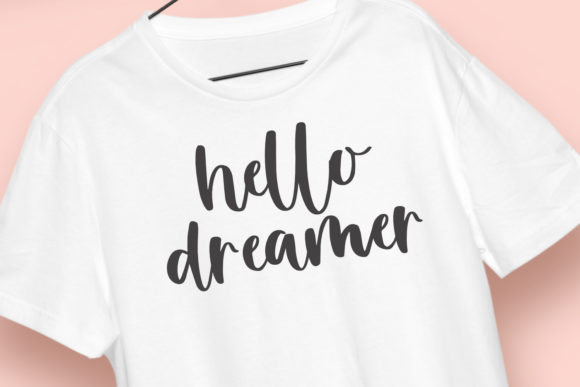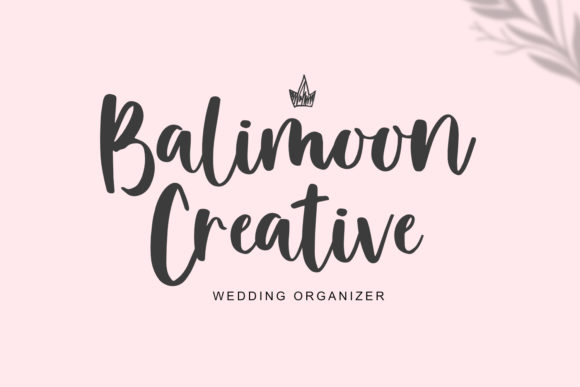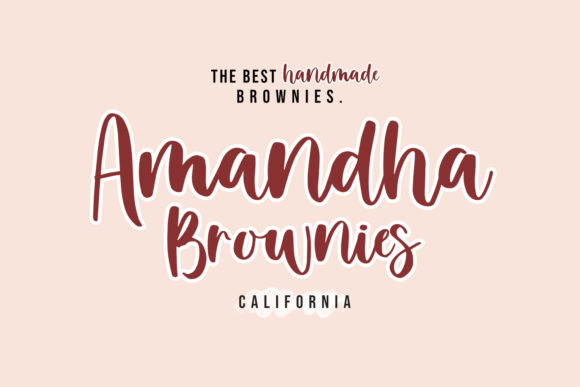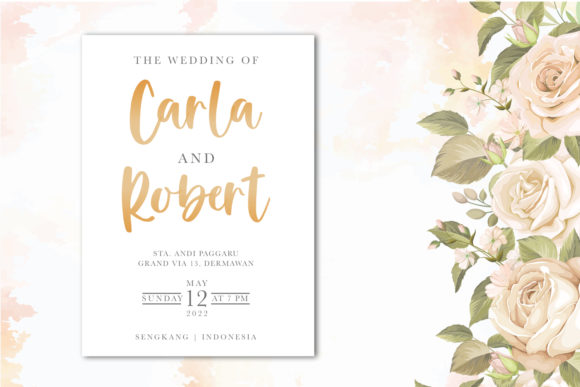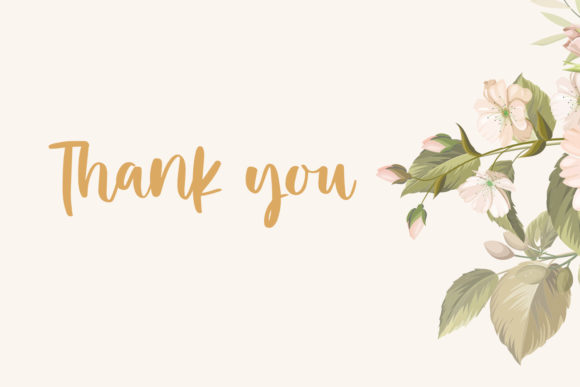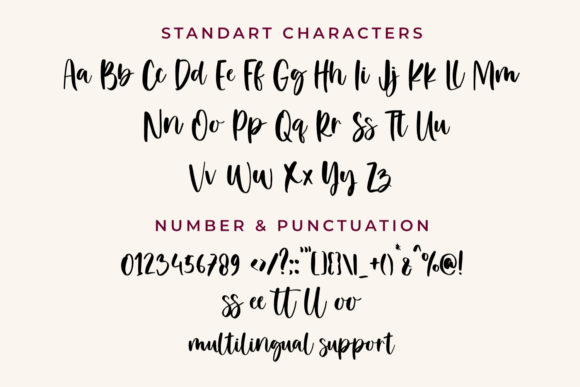
Introducing Balimoon Font: The Perfect Cursive Script for Fashion Branding and Editorial Designs
In the world of typography, fonts play a crucial role in conveying the tone and personality of a brand or design. For designers and crafters looking for a unique and stylish cursive script font, Balimoon is an excellent choice. This beautiful font is defined by smooth curves and is perfect for fashion branding or editorial designs. In this article, we’ll explore the features and benefits of Balimoon Font and why it’s a great addition to your design projects.
What is Balimoon Font?
Balimoon Font is a cursive paint brushed script font that exudes elegance and sophistication. Its smooth curves and fluid strokes give it a natural, hand-painted look that’s perfect for designs that require a touch of personality. The font is designed to be versatile and can be used for a wide range of projects, from fashion branding and editorial designs to packaging and advertising.
Key Features of Balimoon Font
• Smooth Curves: Balimoon Font features smooth, flowing curves that give it a natural and elegant look.
• Cursive Script: The font is a cursive script font, perfect for designs that require a touch of sophistication and personality.
• Paint Brushed Effect: The font has a paint brushed effect, giving it a unique and hand-painted look.
• Fashion Branding: Balimoon Font is perfect for fashion branding, including logos, labels, and packaging.
• Editorial Designs: The font is also great for editorial designs, including magazines, newspapers, and books.
Benefits of Using Balimoon Font
So, why should you use Balimoon Font in your design projects? Here are just a few benefits:
• Unique and Stylish: Balimoon Font is a unique and stylish cursive script font that will add a touch of personality to your designs.
• Versatile: The font is versatile and can be used for a wide range of projects, from fashion branding to editorial designs.
• Elegant and Sophisticated: Balimoon Font exudes elegance and sophistication, making it perfect for high-end designs.
• Easy to Read: The font is easy to read, even in small sizes, making it perfect for body text and headlines.
How to Use Balimoon Font in Your Design Projects
Using Balimoon Font in your design projects is easy. Here are a few tips:
• Pair it with Other Fonts: Pair Balimoon Font with other fonts to create a unique and stylish typography combination.
• Use it for Headlines and Titles: Use Balimoon Font for headlines and titles to add a touch of elegance and sophistication.
• Experiment with Colors: Experiment with different colors to find the perfect combination that matches your brand or design.
Font Name Balimoon Font
In conclusion, Balimoon Font is a beautiful cursive paint brushed script font that’s perfect for fashion branding and editorial designs. Its smooth curves and fluid strokes give it a natural, hand-painted look that’s unique and stylish. With its versatility, elegance, and sophistication, Balimoon Font is a great addition to any design project. So, add it confidently to your projects, and you’ll love the results.
Whether you’re a designer or crafter, Balimoon Font is a great choice for your next project. Its ease of use and flexibility make it perfect for a wide range of designs, from logos and labels to magazines and books. So, why not give Balimoon Font a try and see the difference it can make in your designs?